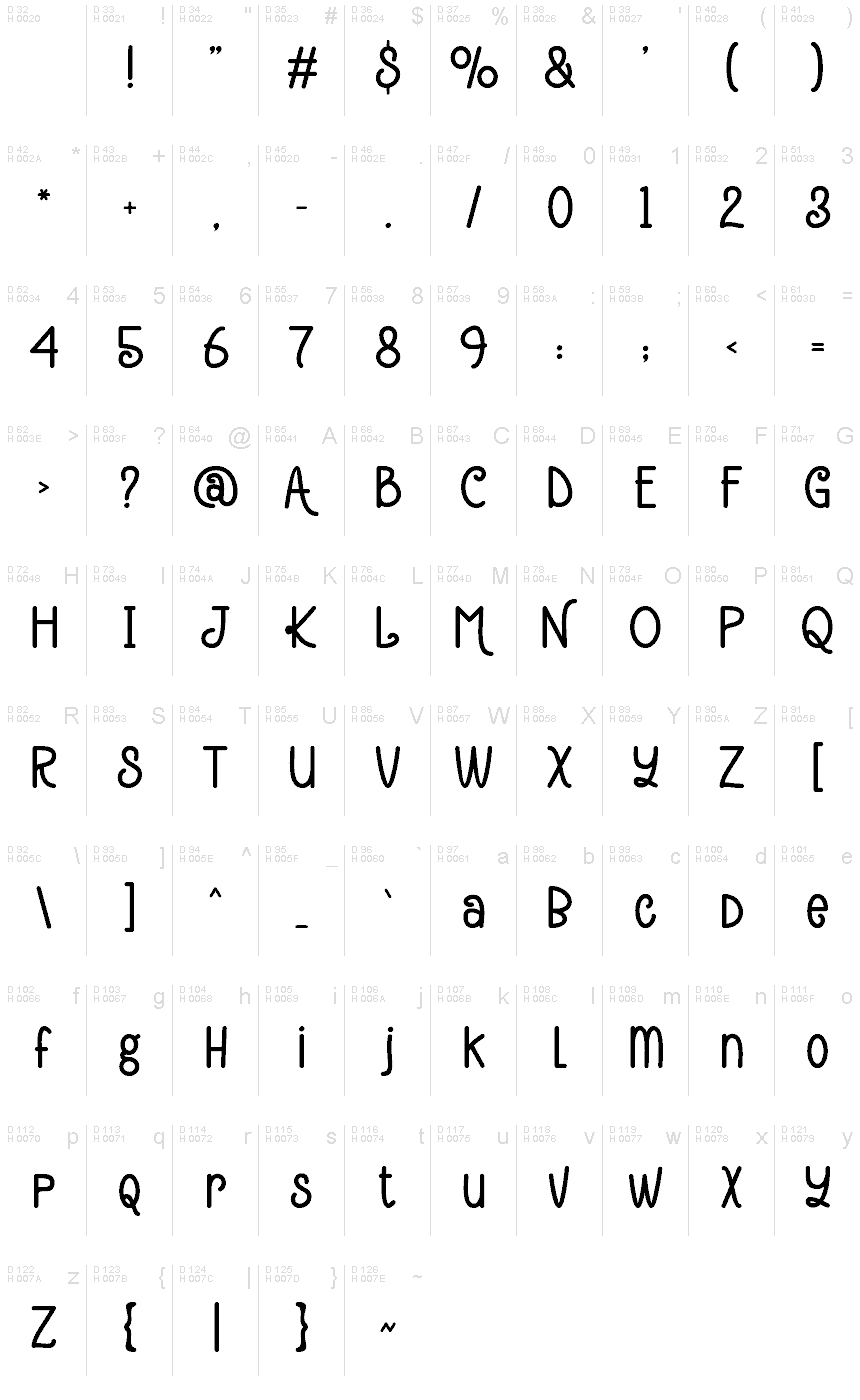
Shiny Brite
Shiny Brite font designed by Gilang Ternadho is a free handwritten font overflowing with a playful, relaxed energy. Curved lines complement its gorgeous whimsical appearance that hints at vintage influences. Users will enjoy the decorative elements encountered even with the first glance, remembering an artistic or even retro charm so very difficult to ignore.
Shiny Brite can be used to create headlines, posters, advertisements, flyers and brochures. It works well on invitations of all types including weddings and anniversaries. Use it in mobile applications and websites for titles or important info that needs recognition from potential users! Labels and packaging also will look fabulous when this style shines above all else on the retailer’s shelves!